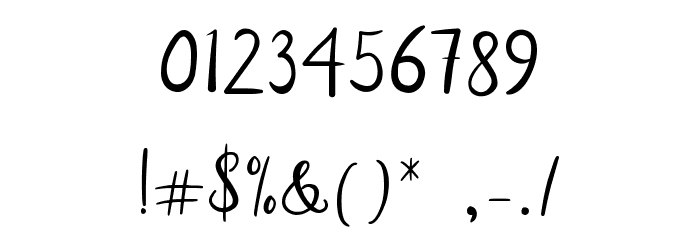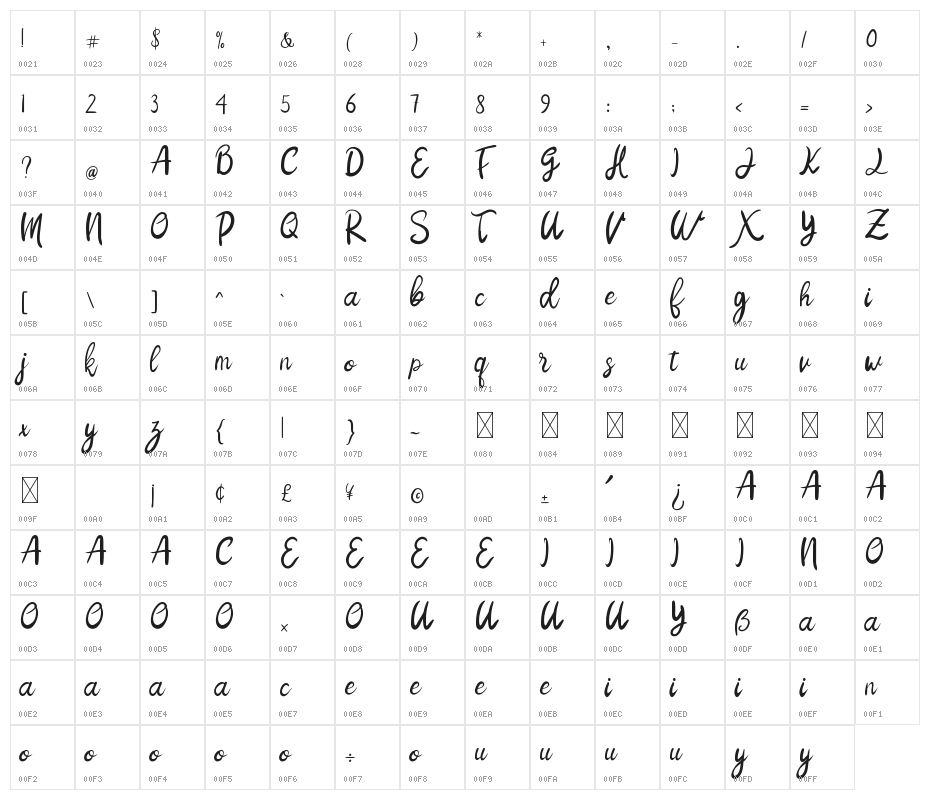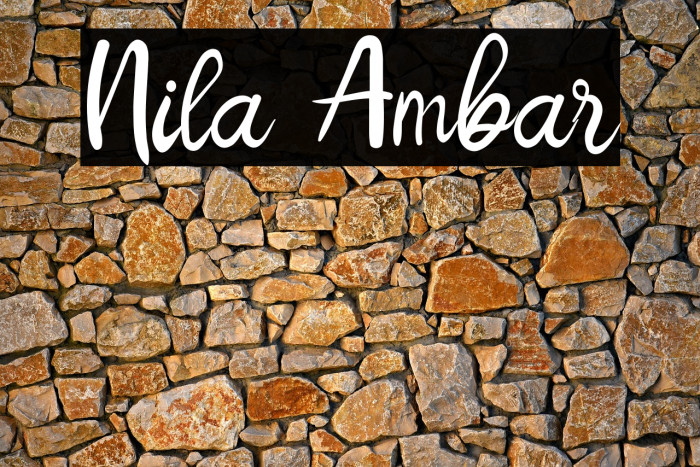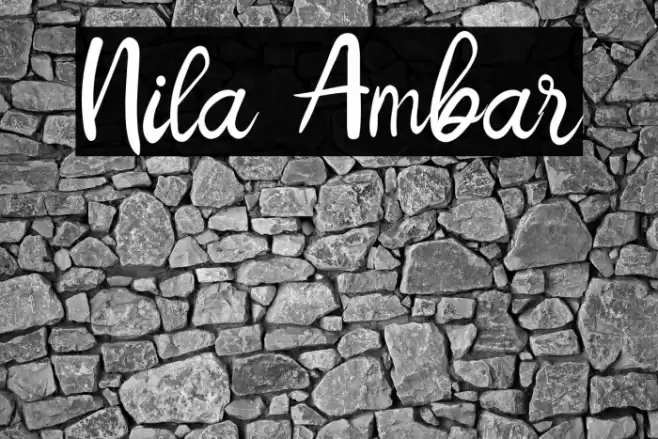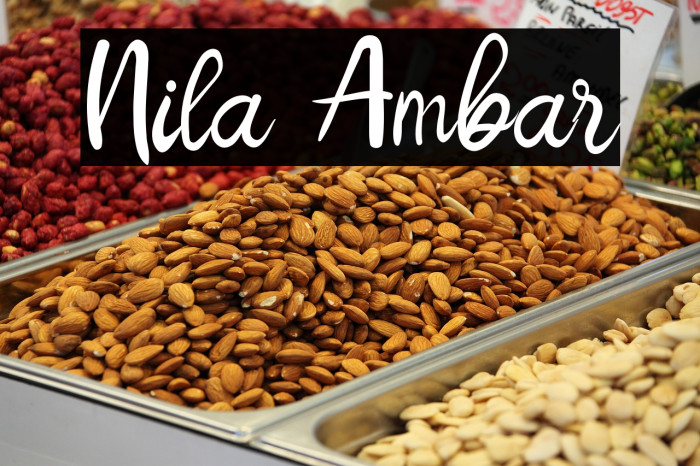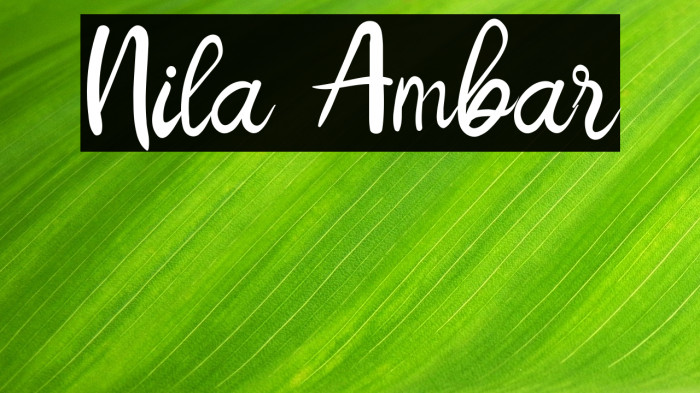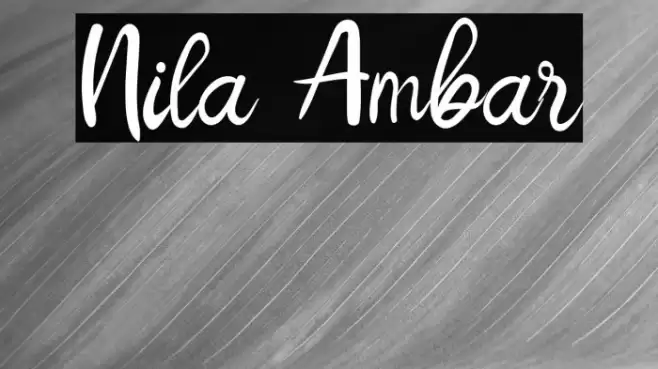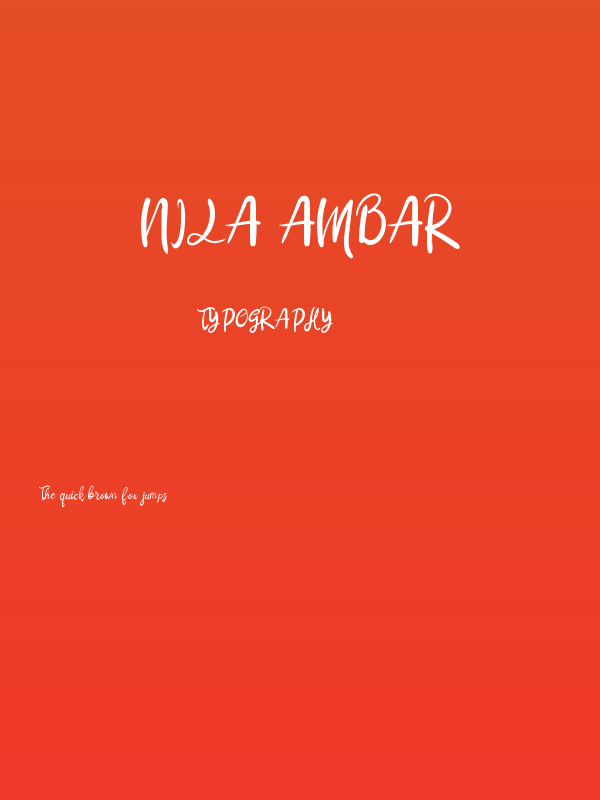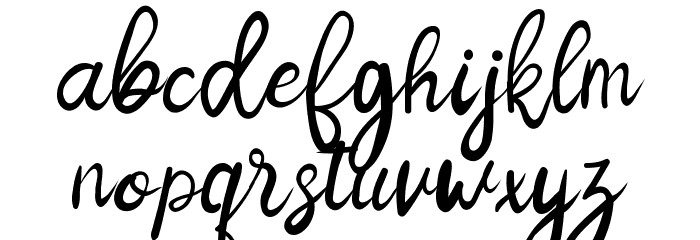
Nila Ambar Font
Nila Ambar Description
This font features a fluid, cursive style with a modern twist. The uppercase letters are bold and expressive, with a slight slant that adds dynamism. The lowercase letters maintain a consistent flow, enhancing readability while retaining an elegant flair. Numbers are clear and well-proportioned, complementing the overall aesthetic. Special characters are designed with the same attention to detail, ensuring they blend seamlessly with the rest of the font. The strokes are smooth and consistent, with a medium contrast that highlights the curves and loops, making it suitable for various design applications.
Use CaseLogos, Invitations, Branding
Proposed ProjectsIdeal for wedding invitations, branding projects, and elegant packaging designs.